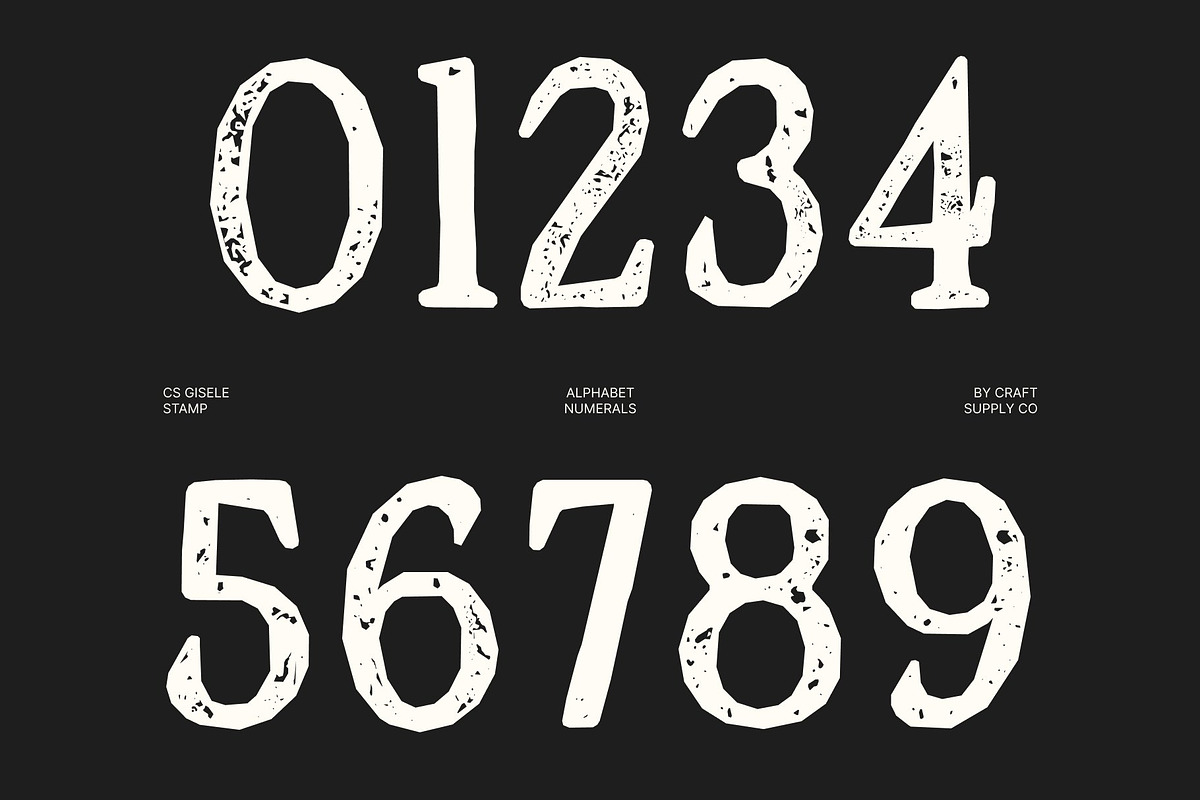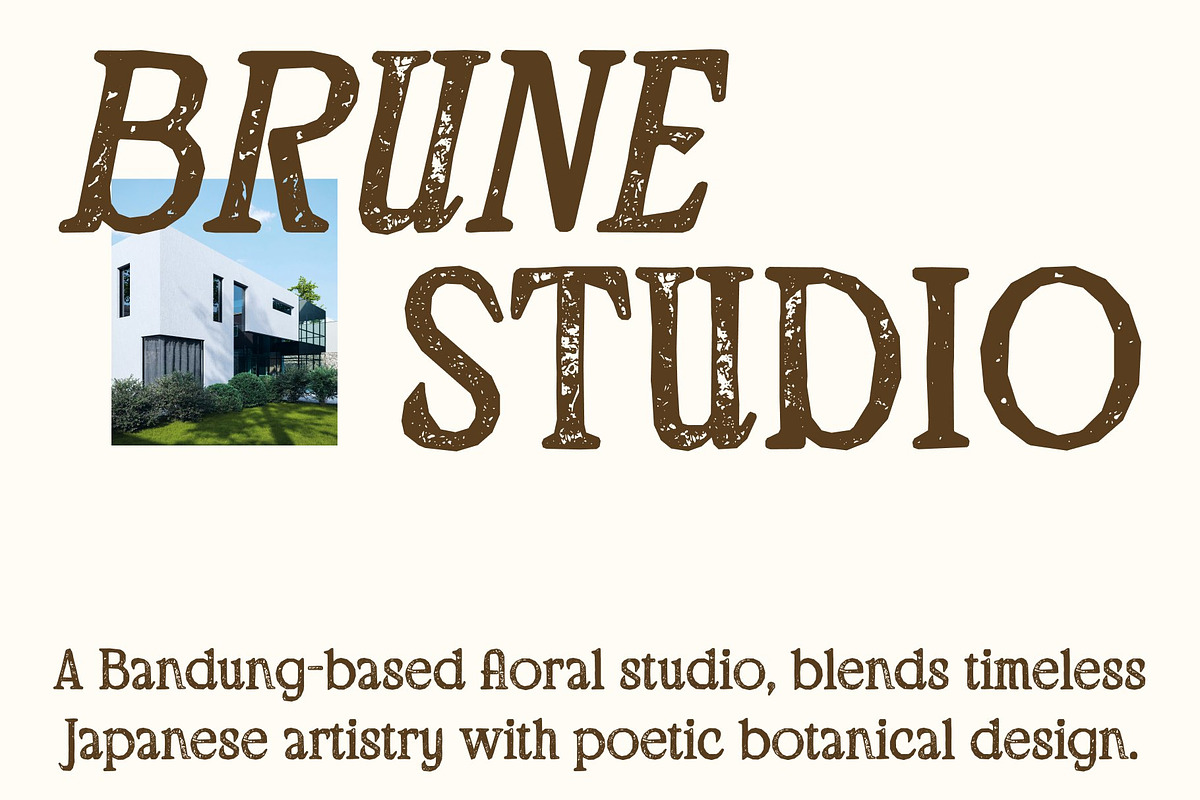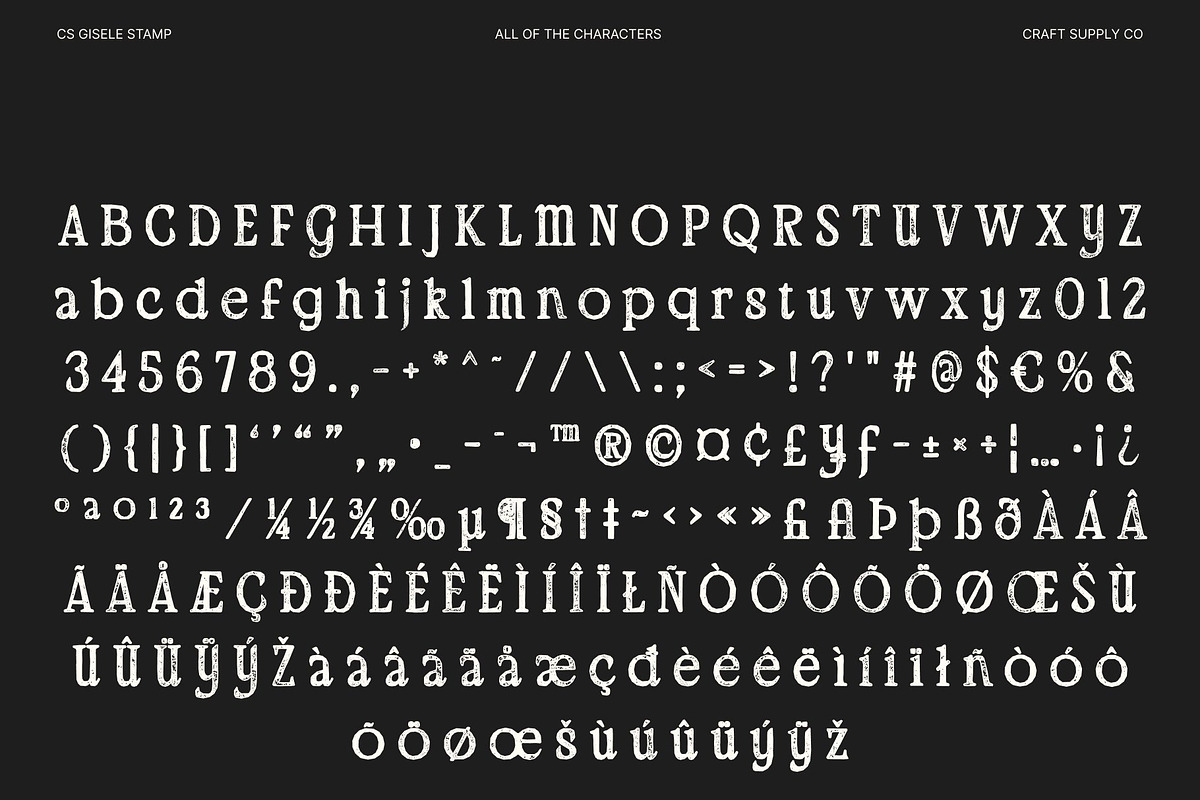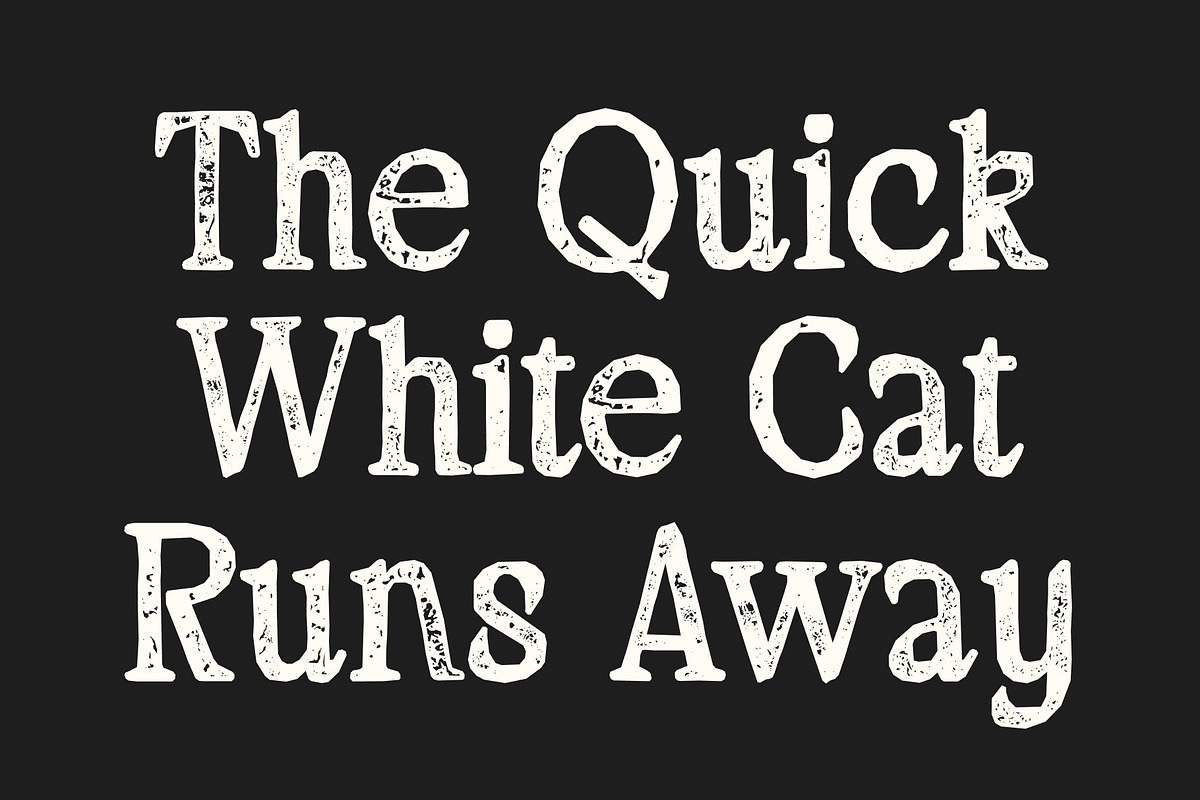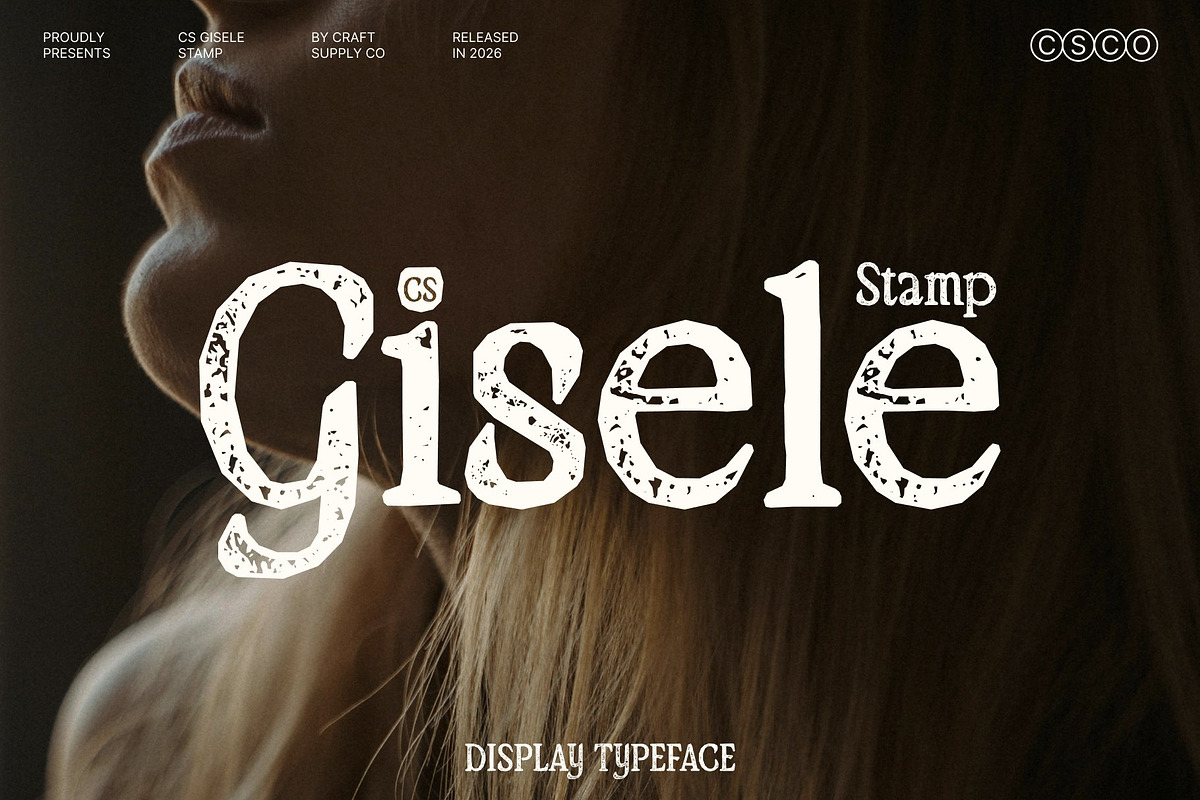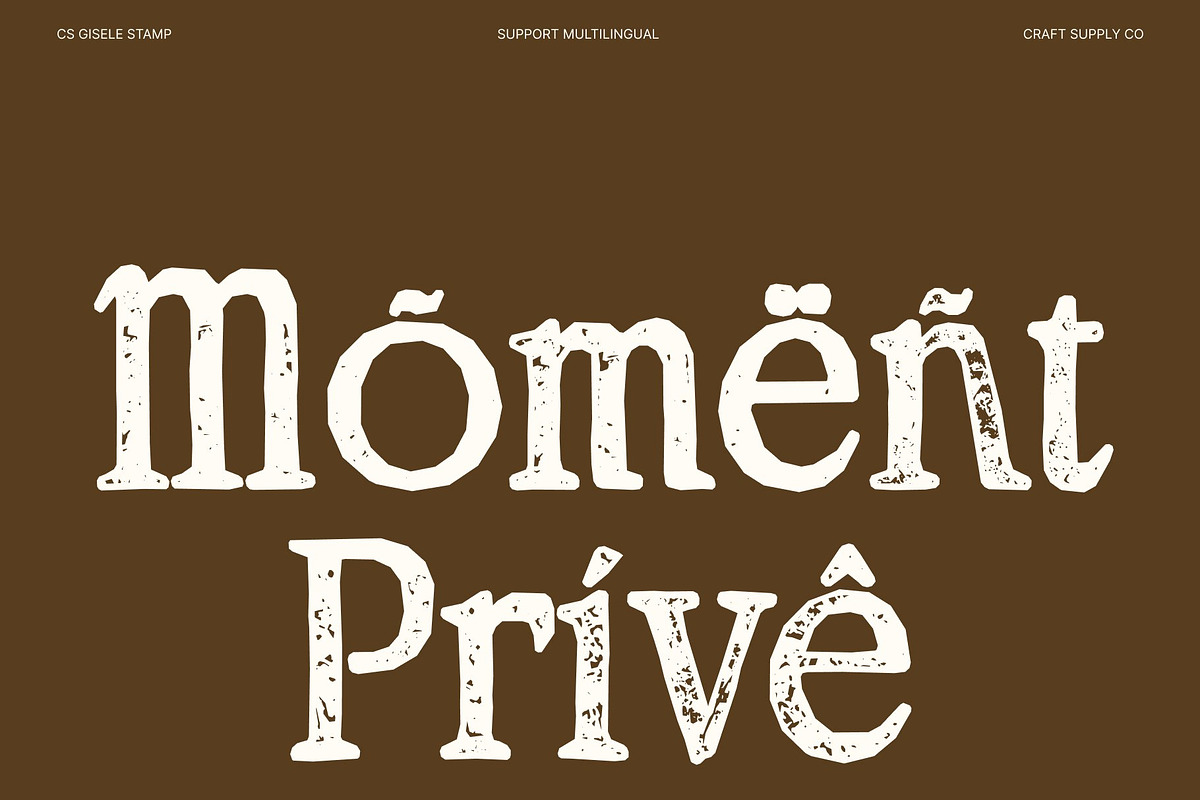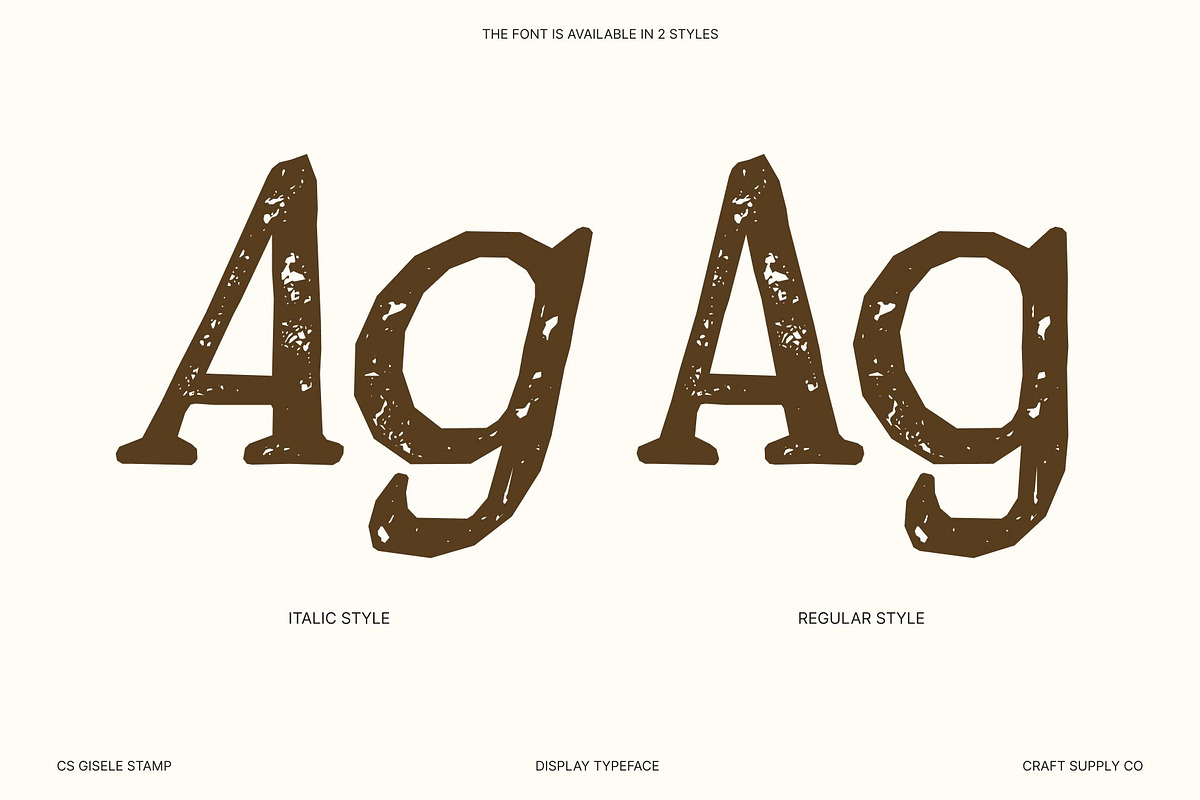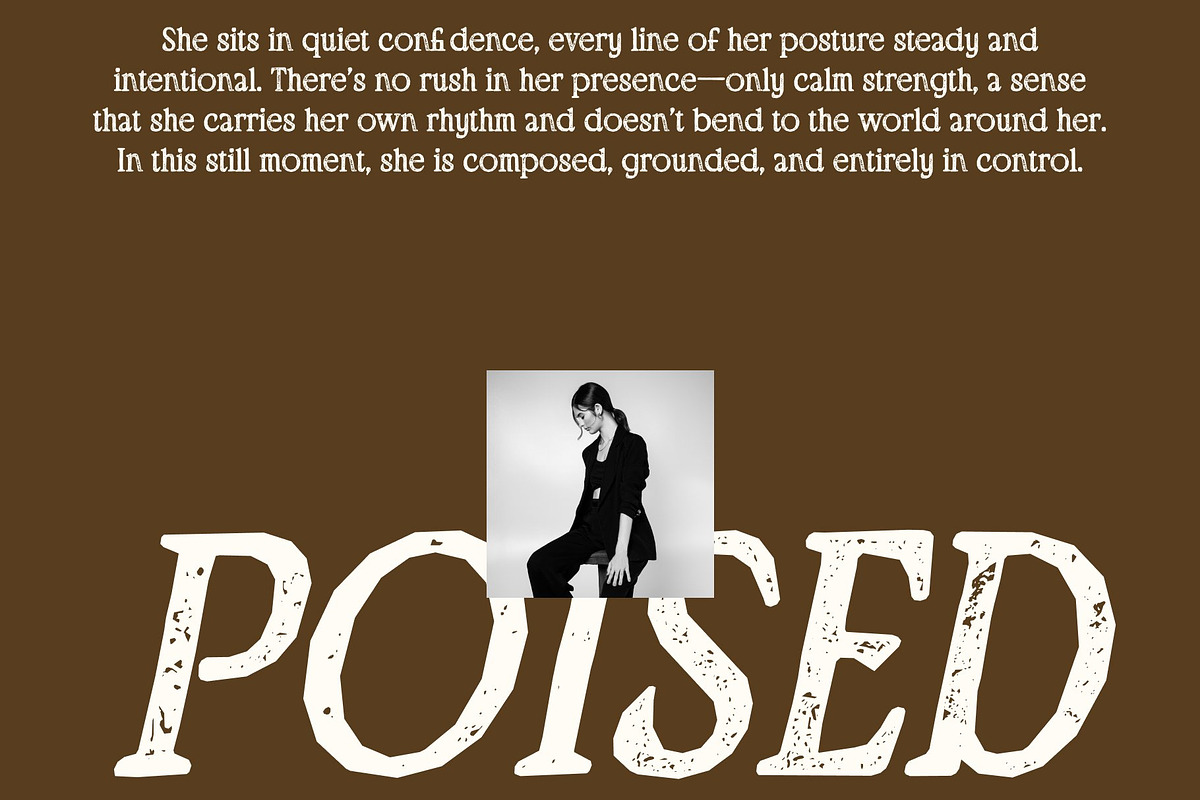
CS Gisele Stamp
CS Gisele Stamp – Modern Serif Elegance with Vintage Texture
A Modern Serif with a Contemporary Touch This is a refined serif typeface that blends clean lines with subtle detailing, now enhanced with a soft stamp texture that introduces warmth and timeless character. Its balanced contrast between thick and thin strokes creates a graceful, polished look while adding a hint of classic printed charm.
Smooth, Sophisticated Letterforms with Printed Character Delicate curves and carefully proportioned shapes provide a fluid reading experience and a strong visual presence. The stamped finish adds gentle imperfections reminiscent of traditional letterpress printing, enriching the font with depth and authenticity.
Elegant, Professional, and Luxurious This font exudes sophistication and refinement, making it perfect for editorial layouts, luxury branding, premium invitations, and corporate presentations. Its ability to perform beautifully in both digital and print environments ensures a consistent, high-class aesthetic.
Timeless Beauty with Modern Versatility Combining contemporary elegance with vintage print-inspired texture, this font offers a distinctive voice for designs that demand grace, professionalism, and enduring style.
CS Gisele Stamp Regular
CS Gisele Stamp Italic